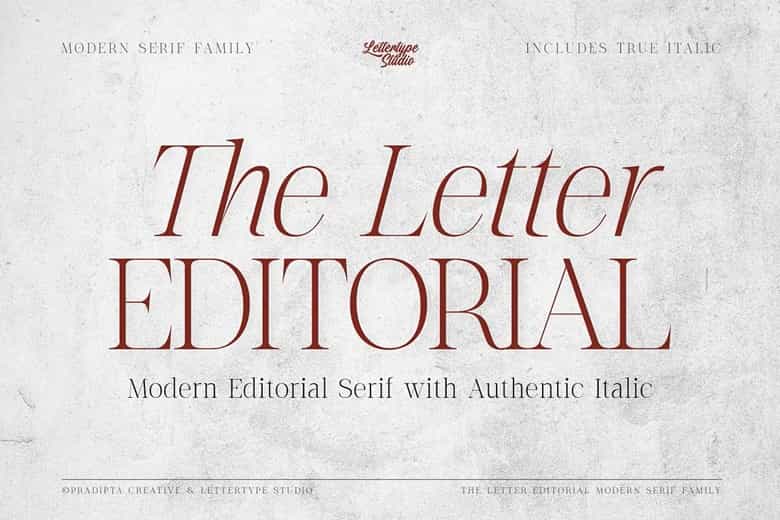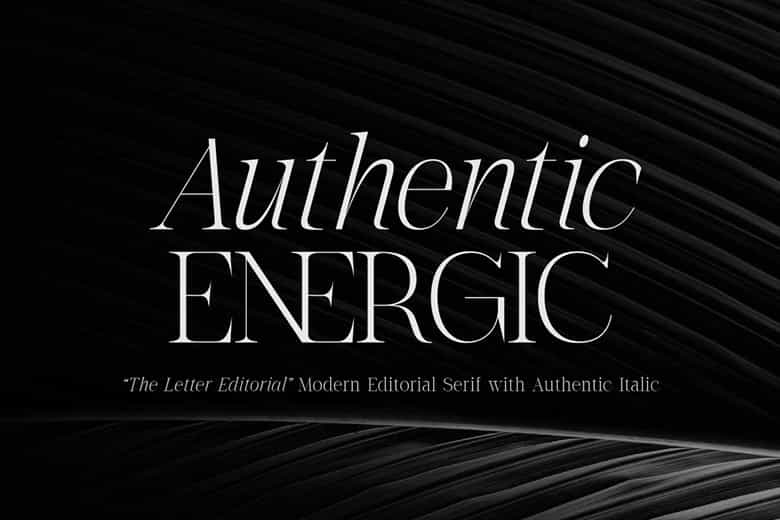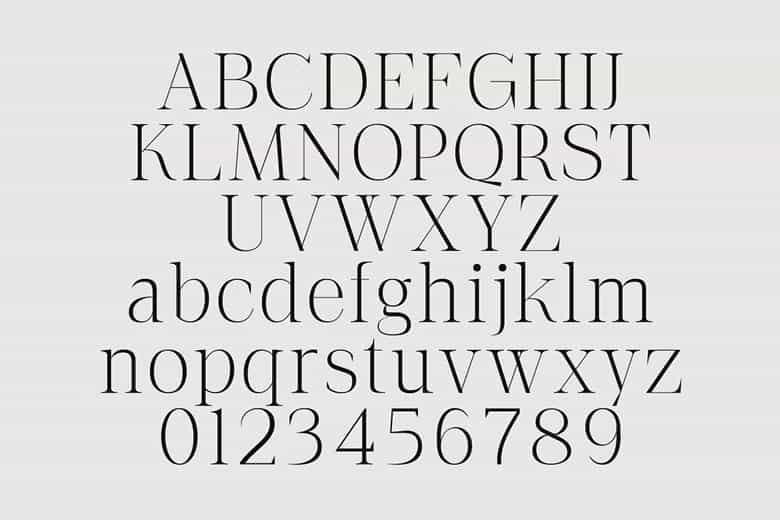
Letter Editorial is a fancy serif font that reflects the core aspect of the contemporary editorial grace. This typeface is imbued with retreating elegance and forward-looking fineness with the luxury contrast and proportions and elegant sculpted letters. Because of the great amount of details been put into it, the regular style is highly structured and poised; therefore, it is perfect in terms of luxury branding, model shots, book design, and premium packaging.